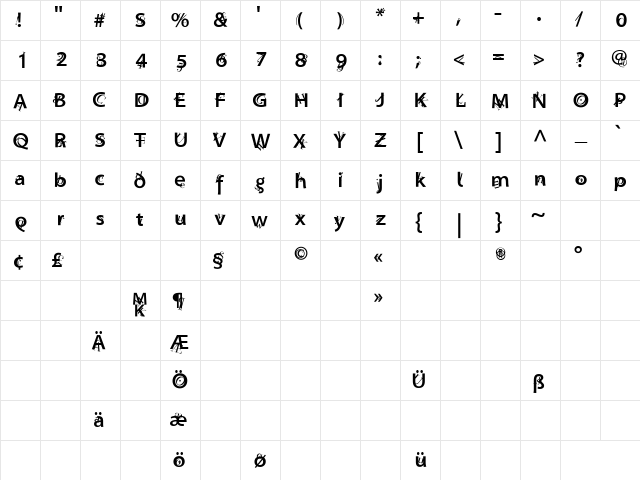
AIFusion Medium
Design Context for AIFusion
AIFusion is a composed and adaptable typeface that performs quietly and consistently across a wide range of design contexts.